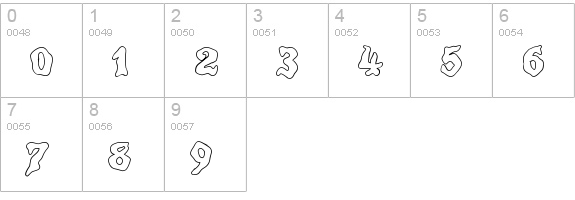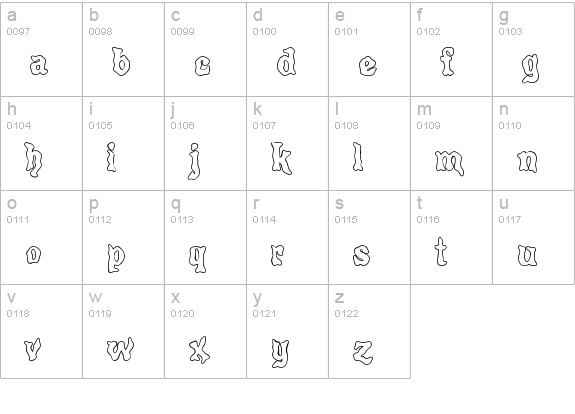
Poultrygeist Out Font Details
Introducing Poultrygeist Out font, a quirky and fun display typeface perfect for adding a touch of whimsy to your designs. This font features bold, hand-drawn letterforms with a playful twist, making it ideal for projects that need a unique and eye-catching look. Poultrygeist Out font is free for personal and commercial use, making it an excellent choice for various creative projects. You can freely download Poultrygeist Out font at FontsMarket.com and start using it in your designs today. Whether you're working on branding, packaging, posters, or social media graphics, this font will surely stand out and make a statement. Embrace the playful charm of Poultrygeist Out font and let your creativity soar!